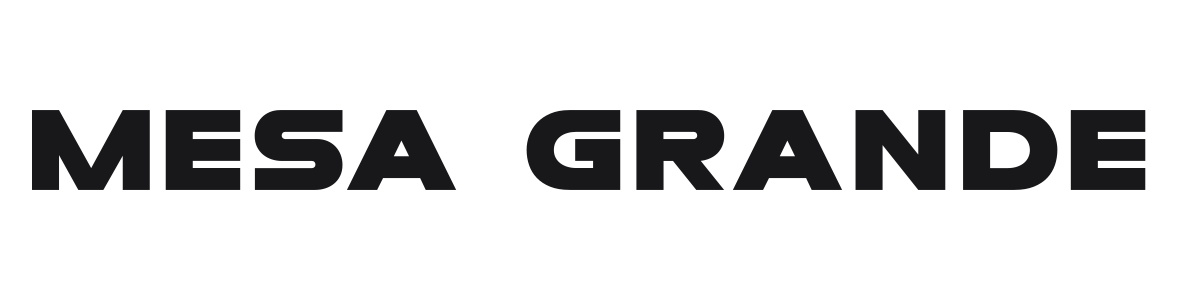
Mesa Grande
Mesa Grande is a heavy all-caps grotesque sans built with broad proportions and a muscular weight that demands attention at large sizes. Subtly rounded interior corners keep it from feeling harsh, adding a touch of warmth to an otherwise bold, utilitarian construction. It reads naturally in rugged outdoor, sports, and entertainment contexts.